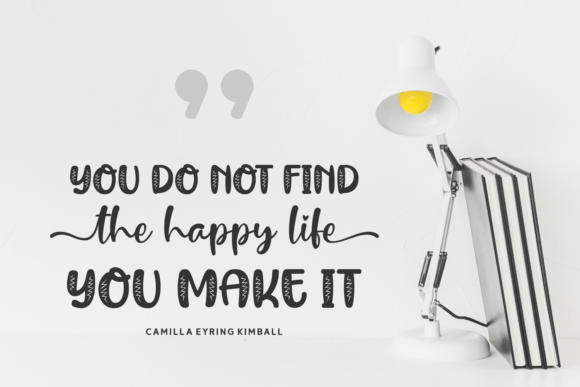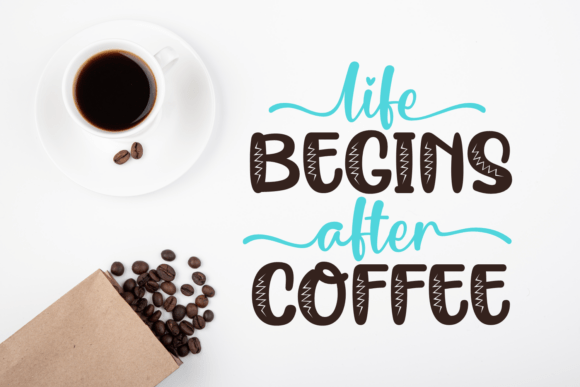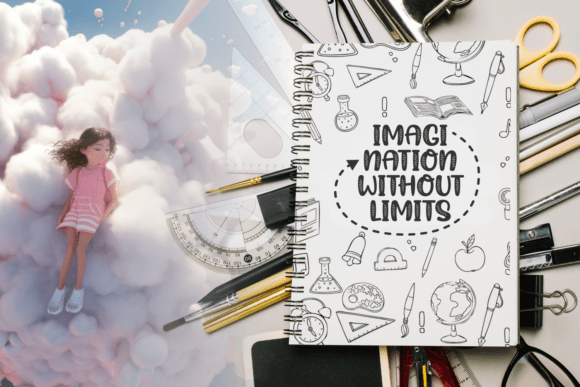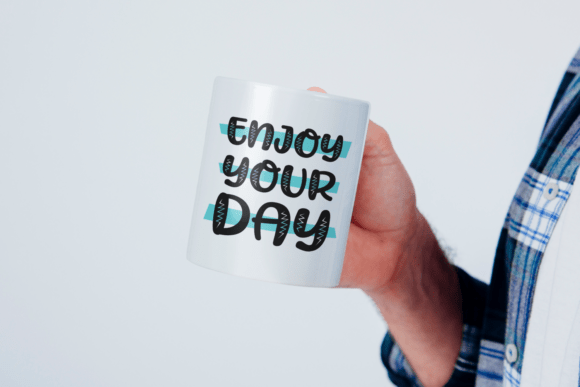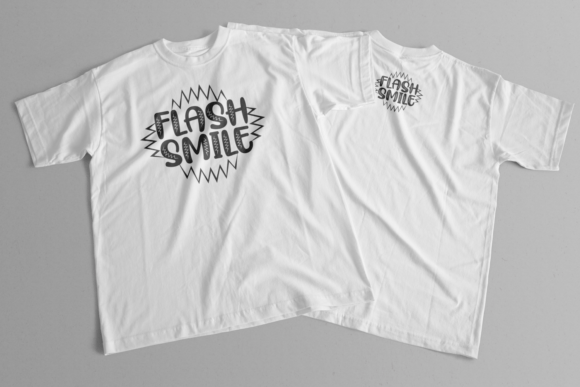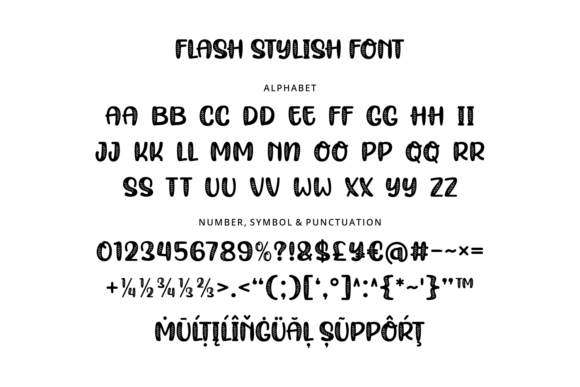
Introducing Flash Stylish Font: The Friendly and Expressive Typeface for Creative Projects
Are you looking for a font that can infuse your creative projects and brand identity with a friendly and expressive character? Look no further than Flash Stylish Font. This plump, rounded typeface radiates warmth and approachability, making it a fantastic choice for brands and creative designs. In this article, we’ll explore the features and benefits of Flash Stylish Font and how it can elevate your design game.
The Characteristics of Flash Stylish Font
Flash Stylish Font boasts a unique set of characteristics that set it apart from other typefaces. Its plump, rounded letterforms are designed to evoke a sense of warmth and friendliness, making it perfect for brands that want to convey a sense of approachability and care. The font’s subtle, handcrafted feel is imparted by the slightly uneven rhythm, adding an authentic and caring touch to your message.
One of the standout features of Flash Stylish Font is its versatility. The font comes equipped with a comprehensive character set, including uppercase and lowercase letters, numbers, punctuation, and a variety of symbols. This means that you can use Flash Stylish Font to create a cohesive and inviting brand presence across various platforms, from social media graphics to posters, apparel designs, and children’s materials.
Perfect for Creative Applications
Flash Stylish Font is not just limited to branding; its playful nature makes it perfect for a wide range of creative applications. Here are some ideas to get you started:
- Social Media Graphics: Use Flash Stylish Font to create engaging social media graphics that showcase your brand’s personality.
- Posters: Create eye-catching posters that grab attention and communicate your message with flair.
- Apparel Designs: Use Flash Stylish Font to create charming apparel designs that appeal to a wide range of audiences.
- Children’s Materials: Flash Stylish Font is perfect for children’s books, educational materials, and other kid-friendly content.
Why Choose Flash Stylish Font?
So, why should you choose Flash Stylish Font for your creative projects? Here are just a few reasons:
- Unique Character: Flash Stylish Font has a unique character that sets it apart from other typefaces.
- Versatility: The font’s comprehensive character set makes it versatile and adaptable to various design applications.
- Easy to Read: Flash Stylish Font is easy to read, even at small sizes, making it perfect for digital and print applications.
- Customizable: The font’s handcrafted feel makes it easy to customize and adjust to suit your design needs.
Tips for Using Flash Stylish Font
Here are some tips for getting the most out of Flash Stylish Font:
- Experiment with Colors: Flash Stylish Font looks great in a variety of colors, so don’t be afraid to experiment and find the perfect hue for your design.
- Play with Size: The font’s versatility means that it can be used at a range of sizes, from small captions to large headlines.
- Mix and Match: Try pairing Flash Stylish Font with other fonts to create a unique and eye-catching design.
In conclusion, Flash Stylish Font is a friendly and expressive typeface that can infuse your creative projects and brand identity with a unique character. Its versatility, readability, and customizability make it perfect for a wide range of design applications, from branding to social media graphics, posters, apparel designs, and children’s materials. With Flash Stylish Font, you can communicate with both personality and flair, making it an excellent addition to your design toolkit.